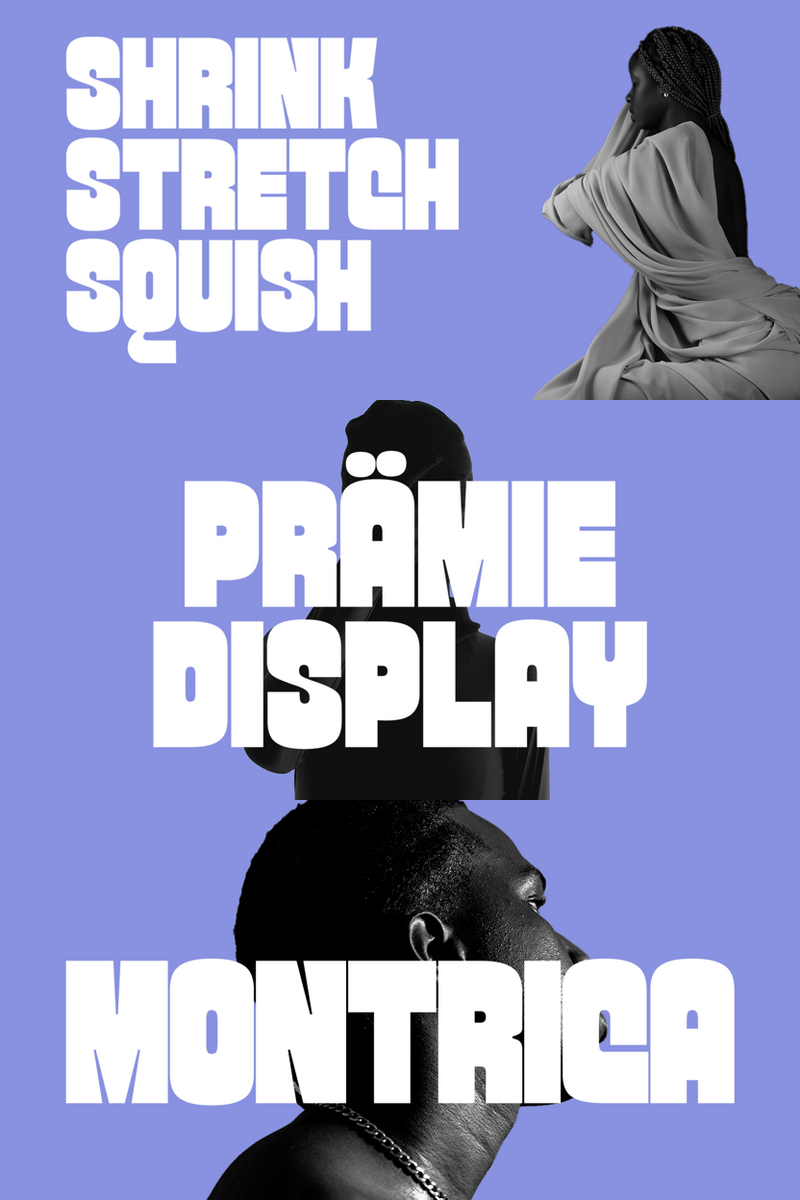
Can Montricano Display lend that perfect 'Established Since 19XX' vintage warmth to your website headlines, captivating users with nostalgic charm?
Remember the comforting weight of a cherished photo album or the faded elegance of a hand-lettered sign from a beloved old shop? Montricano Display isn't just a font; it's a carefully crafted whisper from a bygone era, designed to bring that same warm, authentic vintage charm and nostalgic appeal directly to your modern digital landscapes.
In a digital world often striving for sleek minimalism, UX/UI designers are increasingly seeking elements that feel human, tell a story, and evoke a deeper sense of history and belonging. You’re not just building interfaces; you’re crafting experiences that resonate. Montricano Display is your secret ingredient for infusing those experiences with genuine soul. Imagine a 'Welcome Back' header that feels like a warm embrace, or an 'Our Story' section that instantly builds trust with its undeniable authenticity. This isn't about being old-fashioned; it's about leveraging the enduring power of nostalgia to forge profound emotional connections with your users. Montricano Display helps brands feel established, trustworthy, and genuinely memorable, transforming sterile screens into canvases brimming with character.
With Montricano Display, you gain:* Instant Authenticity: Bridges the gap between the digital and the tangible, making interfaces feel more grounded and real.* Emotional Resonance: Connects with users on a deeper, more personal level through shared nostalgic feelings, fostering loyalty and engagement.* Distinctive Brand Identity: Helps your projects and client brands stand out with a unique, memorable voice that speaks of heritage, quality, and craftsmanship.* Enhanced User Engagement: Users linger longer and interact more deeply with designs that tell a story and evoke positive, familiar emotions.
Picture Montricano Display gracing the hero sections of e-commerce sites selling artisanal goods, lending a handcrafted feel to 'New Arrivals' or 'Seasonal Collections.' Envision it as the headline font for a digital archive or a history-focused app, making 'Explore Our Past' truly inviting. From captivating call-to-action buttons like 'Discover Your Roots' to elegantly framing 'Limited Edition' product details, Montricano Display shines wherever a touch of timeless character is needed most. It’s perfect for branding digital platforms for boutique cafes, vintage shops, craft breweries, or any project aiming for a friendly, established, and memorable online presence.
Montricano Display: Where Vintage Charm Meets Modern Design.